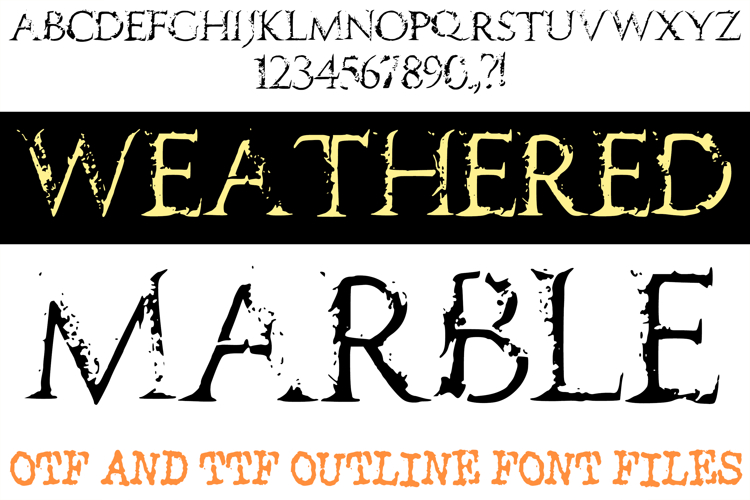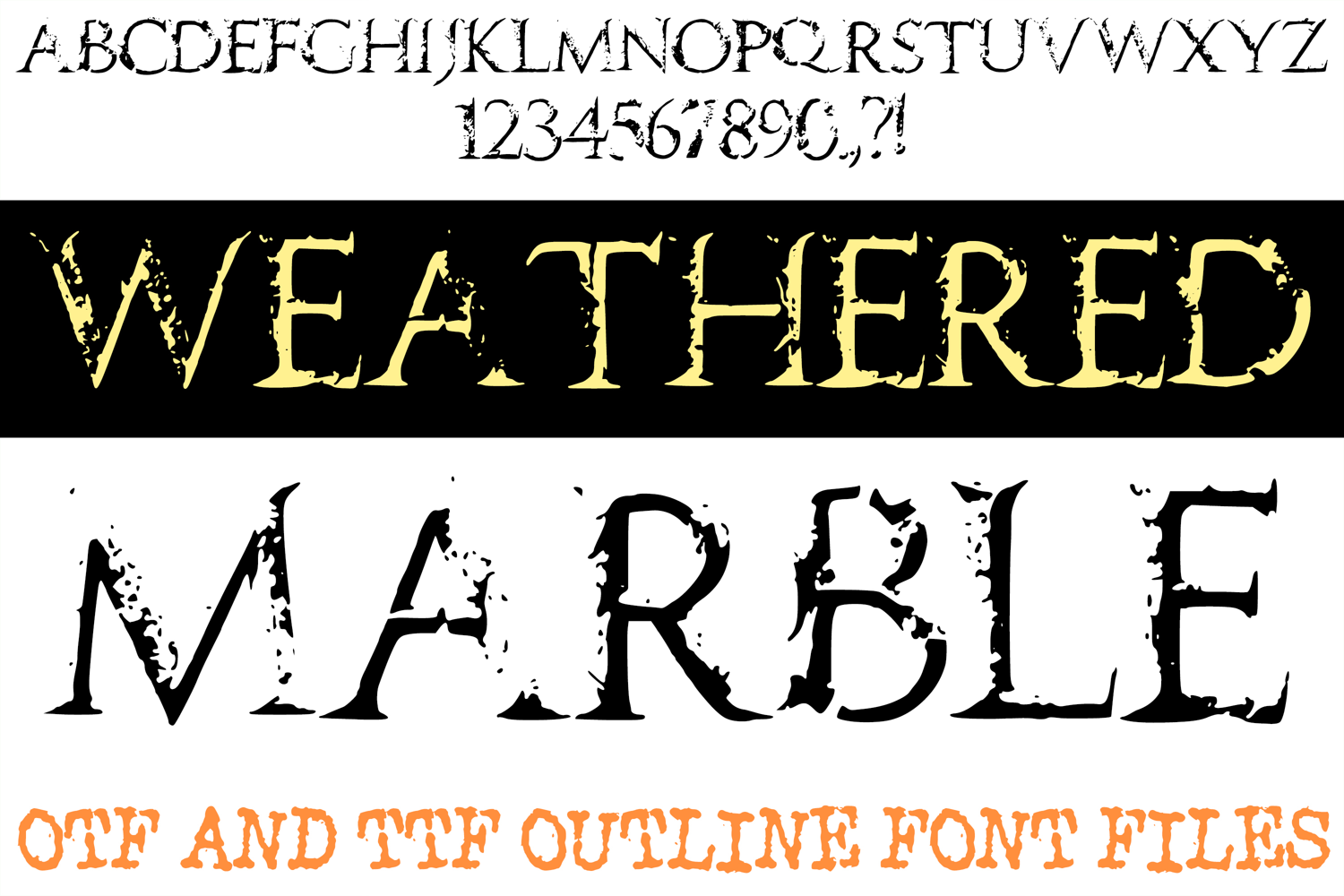
Weathered Marble Lettering Font Distressed Roman ABC OTF
The Weathered Marble Font is an authoritative display typeface that replicates the macro-level degradation found on ancient, sun-bleached marble monuments and ruins.
Building on our established expertise with deeply chiselled concrete and aggregate textures, this font introduces a new layer of mineral complexity. The Weathered Marble aesthetic is less about clean lines and more about geological time. Every character is sculpted to appear ancient, showing severe pitting, extensive network cracking, and brittle, fractured edges that suggest millennia of weathering.
This font is designed to turn text into a structural relic. Ideal for high-stakes titles in monumental historical epics, premium architectural branding, and archaeological museum displays, it captures the sophisticated, grounded feeling of ancient stone.